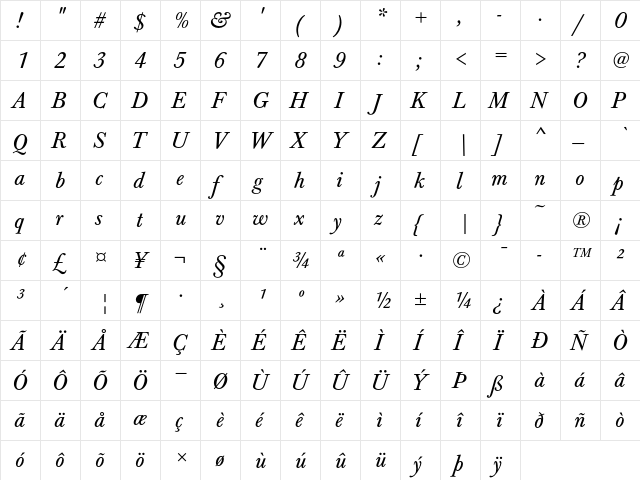
Baskerville T Regular Italic Font Preview
Baskerville T Regular Italic
Design Context for Baskerville T Typeface
Baskerville T takes a measured approach to typography — its balanced proportions and neutral character make it a reliable workhorse for both digital and print work. Its italic angle brings a sense of urgency and motion to the letterforms.
Pro Tip: Use Baskerville T for emphasis, pull quotes, and subheadings where its slanted energy can add rhythm to the layout.